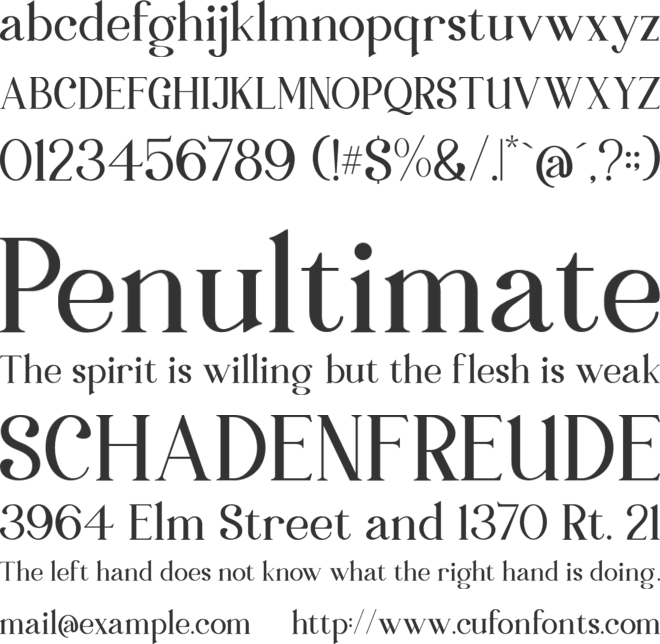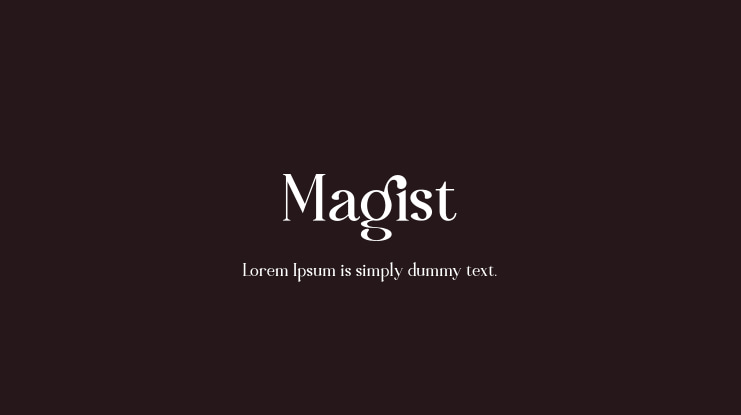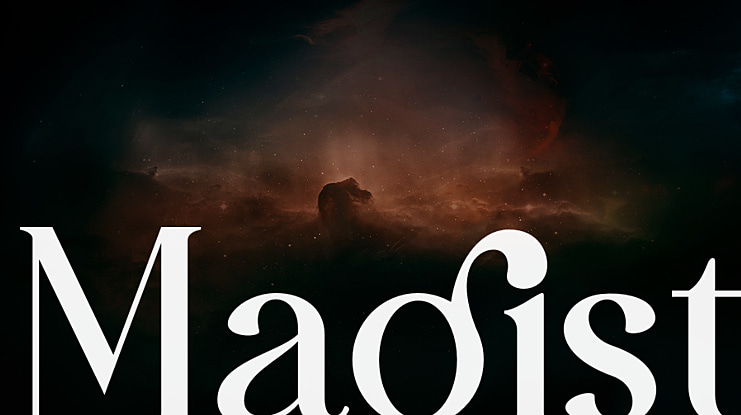
Magist Font Family
Wira Hidayatullah
I'm present to you for new font, Magist!Magist Serif Display a elegant style serif font with alternatives and ligatures that create stunning logos, quotes, posts, blog posts. branding projects, magazine imagery, wedding invitations, and much moreWhat you get?- Magist OTF- Magist Italic OTF- Letters, numbers, punctuation, multilingual support, and ligatureFollow my shop for upcoming updates including additional glyphs and language support.If there is a problem feel free to message or contact at : Happy Creating!Wira Studio